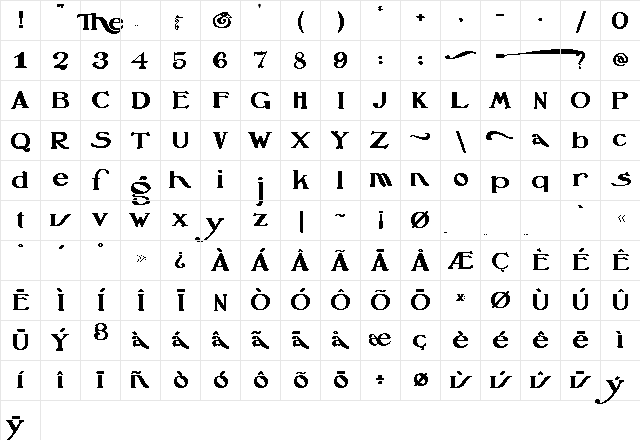
Oz'sWizard Cowardly Lion
Style: Cowardly Lion
Designer: Mario Arturo
Oz'sWizard Family
Design Context for Oz'sWizard
Oz'sWizard is a composed and adaptable typeface that performs quietly and consistently across a wide range of design contexts.